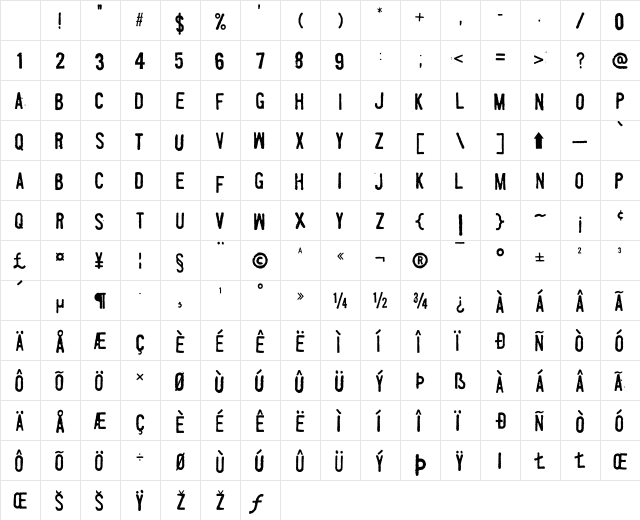
Complete Fueled by Schlitz Clean glyph index. Displaying only characters natively supported by Fueled by Schlitz Clean font.
Fueled by Schlitz is a composed and adaptable typeface that performs quietly and consistently across a wide range of design contexts.